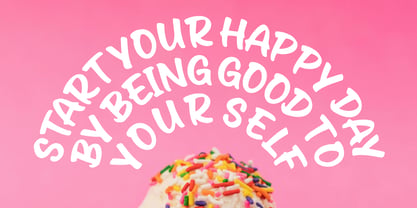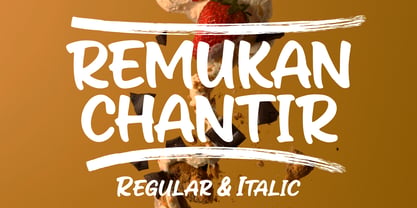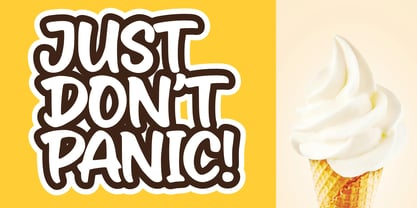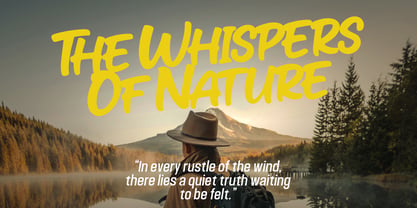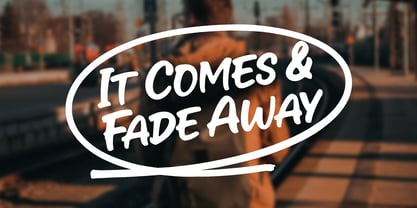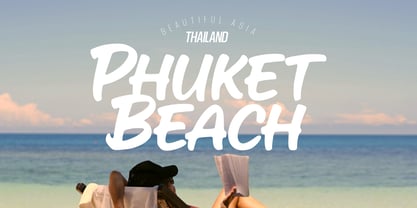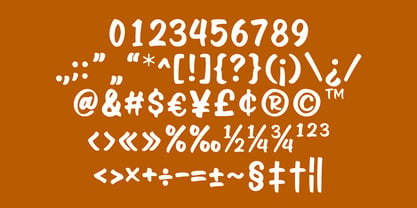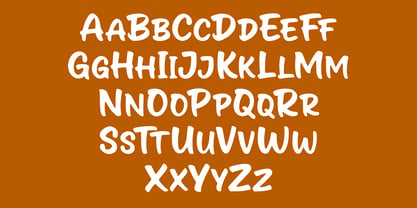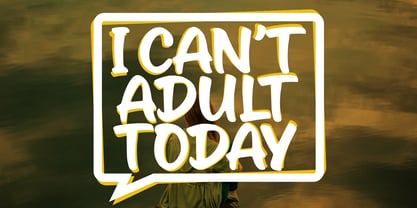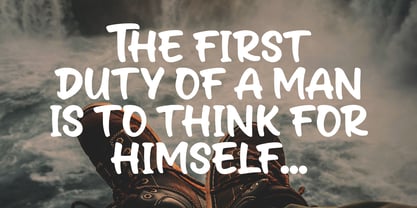
Remukan Chantir
The Remukan Chantir Font Family was designed by Sugi Yanto and published by Sign Studio. Remukan Chantir contains 2 styles and family package options. More about this family
Remukan Chantir – Playful Handwritten Brush Font Family
Remukan Chantir is a cheerful handwritten brush font that brings warmth and personality to every design. With its bold strokes, soft curves, and natural rhythm, this font captures the spontaneous energy of real hand lettering — fun, friendly, and full of life. This family includes Regular and Italic styles, giving you the flexibility to mix expressions and create dynamic compositions. The italic version adds an extra sense of motion and emotion, perfect for quotes, posters, or designs that need a touch of playfulness. Ideal for logos, packaging, kids’ products, invitations, posters, and social media graphics, Remukan Chantir makes every word stand out with authentic handmade charm.
Features:
• 2 Styles: Regular & Italic
• Uppercase & lowercase letters
• Numbers & punctuation
• Multilingual support
Natural brush texture for a genuine handwritten feel. Let your creativity flow with Remukan Chantir — a font that smiles with every stroke.
Designers: Sugi Yanto
Foundry: Sign Studio